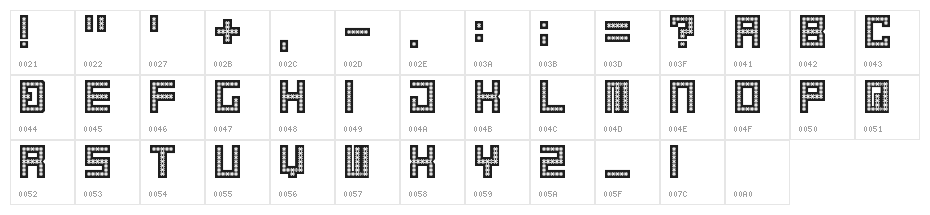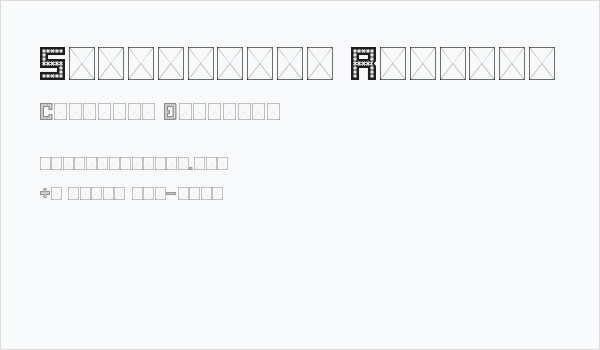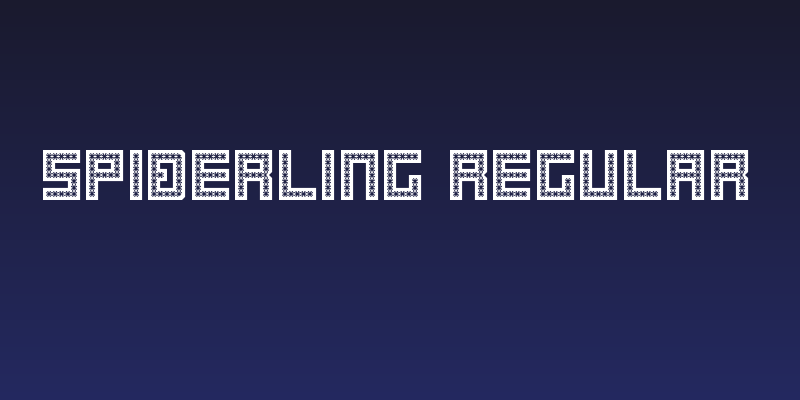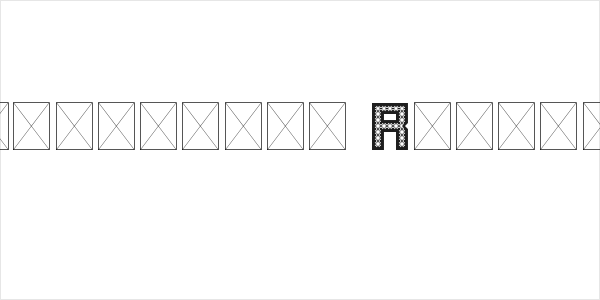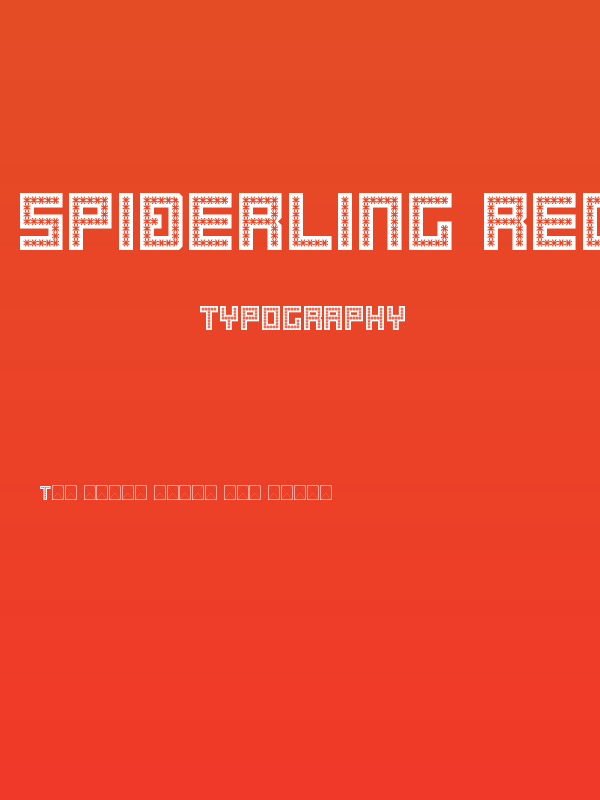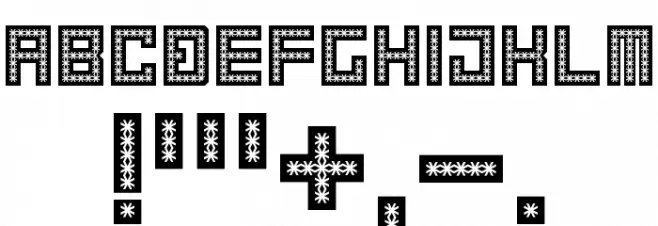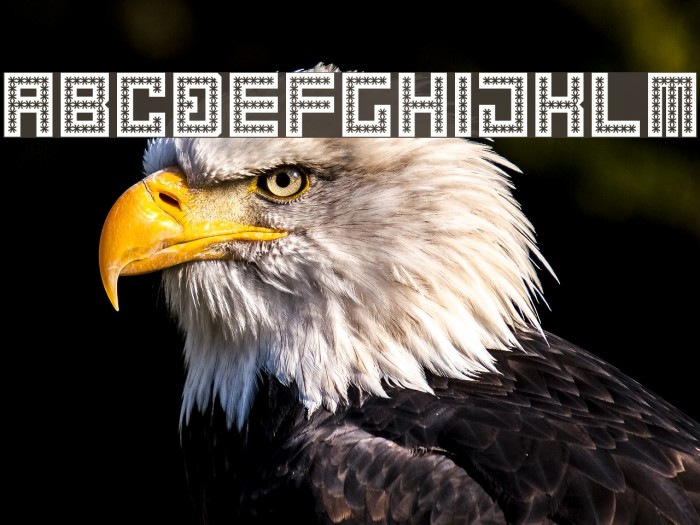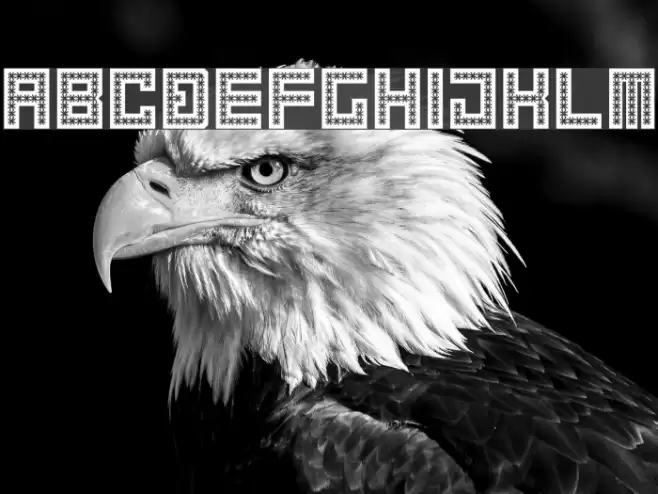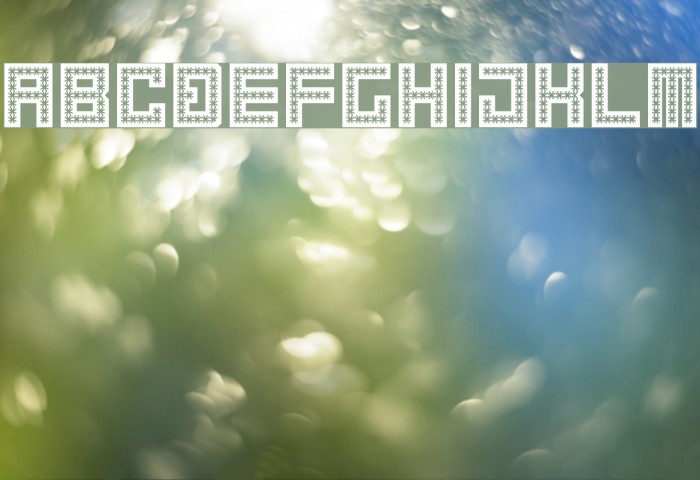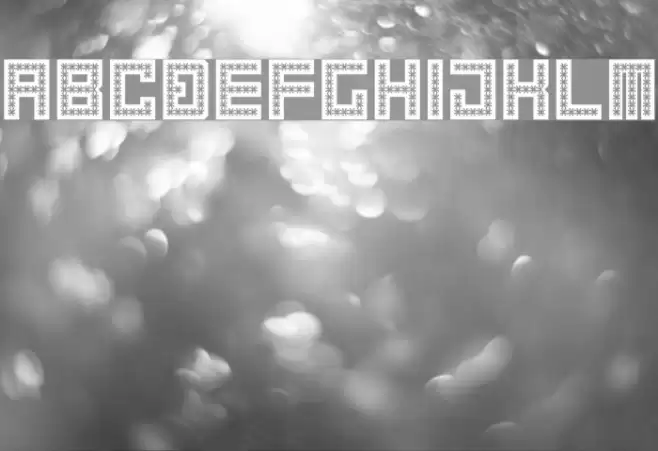
Spiderling Regular Font
Spiderling Regular Description
This font features a bold, decorative style with a unique pattern filling each character. The letters are constructed with a consistent geometric structure, giving them a blocky appearance. Each character is filled with a repeating star-like motif, creating a textured look that stands out. The font maintains a uniform height across all characters, ensuring a cohesive visual flow. Its distinct design makes it ideal for eye-catching displays and creative projects. The special characters, including punctuation and symbols, follow the same decorative pattern, enhancing the overall aesthetic.
| Proposed Projects | Perfect for poster designs, event invitations, branding materials, and any project requiring a bold, decorative touch. |